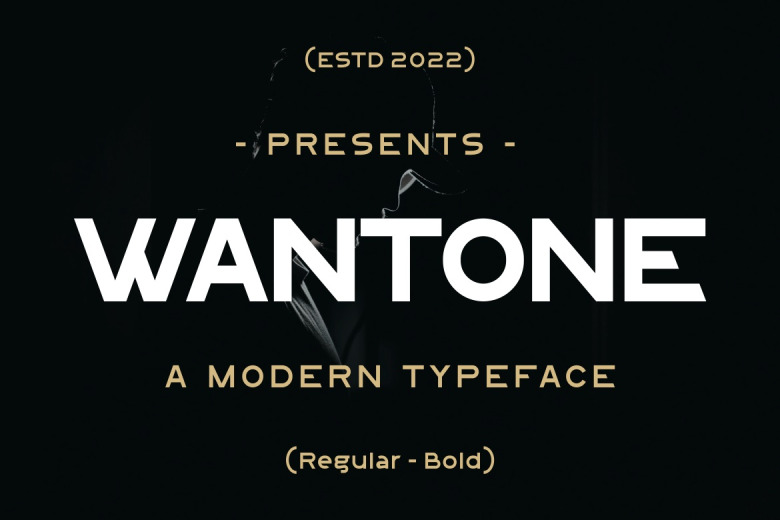
Wantone Font
Wantone is a bold sans serif font, full of authenticity. This font can be used in a variety projects: logo, t-shirt printing, product packaging, and much more. It renders perfectly in a wide range of contexts.
Wantone Sans Serif Font